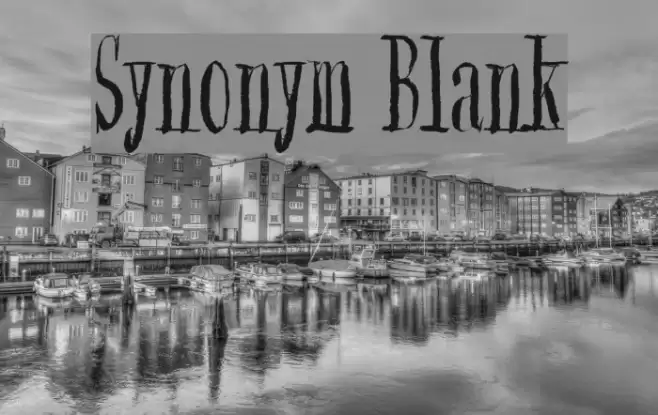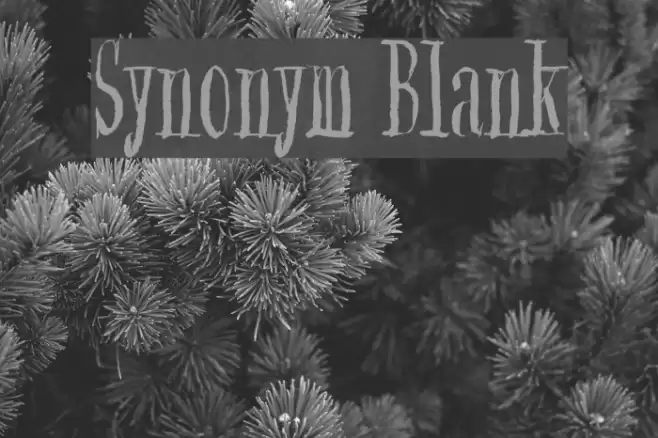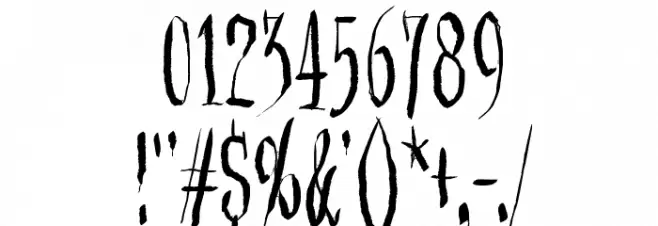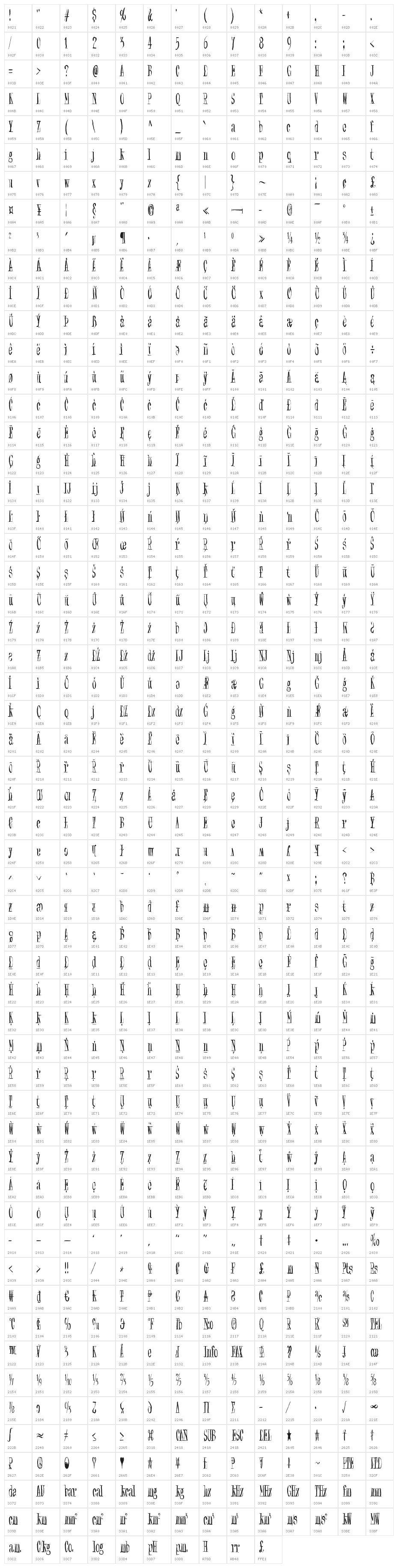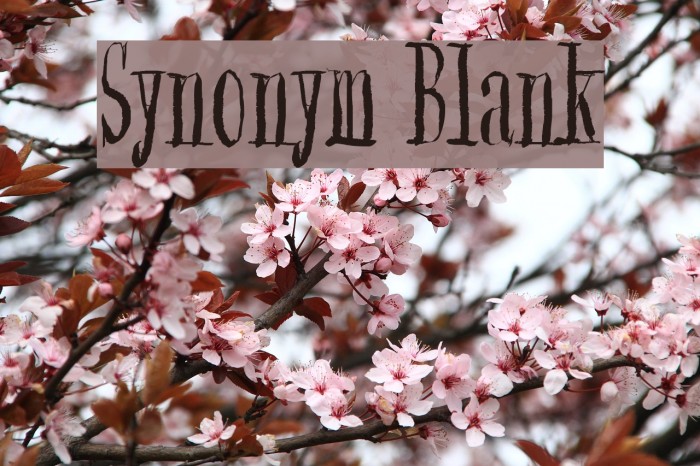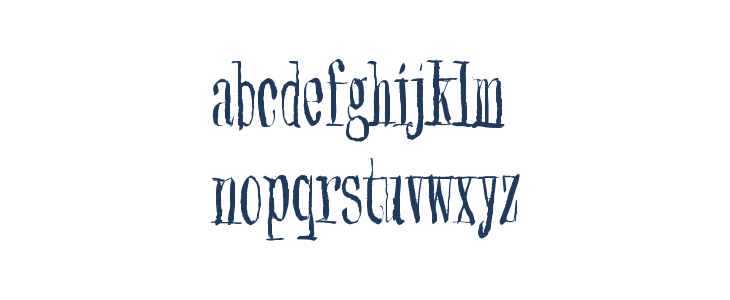
Synonym Blank Font
Synonym Blank Description
This font exhibits a distinctive, hand-drawn style with uneven strokes and a slightly distressed appearance. The uppercase letters are tall and narrow, with exaggerated serifs that give them a dramatic flair. The lowercase letters maintain a consistent style, featuring elongated ascenders and descenders that add to the font's unique character. Numbers and special characters follow the same design principles, ensuring a cohesive look across all elements. The overall appearance is both artistic and edgy, making it suitable for creative projects that require a bold statement.
A hand-drawn, distressed font with dramatic serifs and artistic flair from Uncategorized fonts.
- Proposed Projects: Ideal for posters, album covers, artistic branding, and any project seeking a bold, creative touch.
- Overall Style: Artistic, Edgy